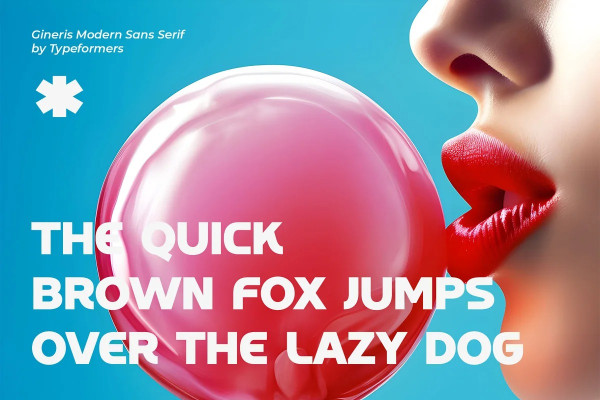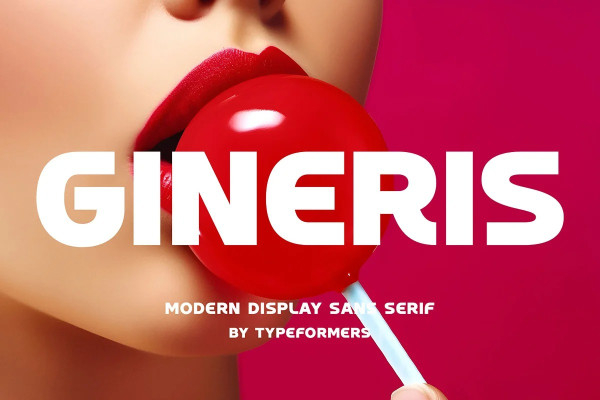
Gineris Font
Gineris Font – Modern Display Sans Serif – is a modern and simple font, best used as a display for headings, logos, branding, magazines, product packaging and invitations.